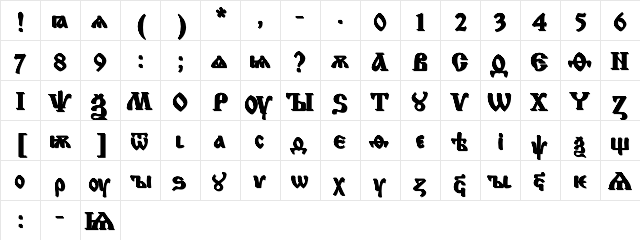
IzhitsaShadowC Regular Font Preview
IzhitsaShadowC Regular
IzhitsaShadowC Regular Font Details
Design Context for IzhitsaShadowC Typeface
IzhitsaShadowC is built around its visual character rather than neutral utility — its distinctive forms are designed to make an impression at display sizes.
Font Pairing: Pair with a clean neutral sans-serif for body copy to let IzhitsaShadowC's character lead without overwhelming the composition.
Pro Tip: Treat IzhitsaShadowC as the centrepiece of your typographic hierarchy. One strong heading set in a decorative face can carry an entire layout.